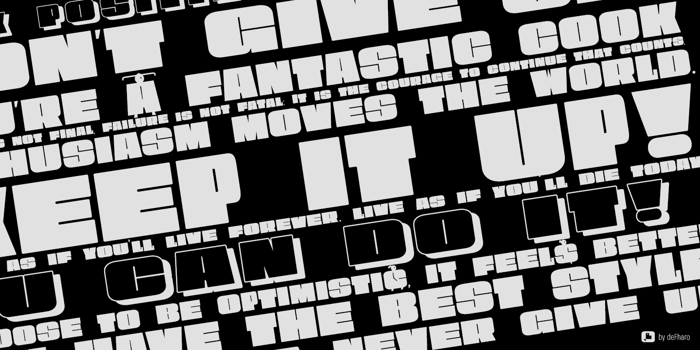
Obesum Ultra Caps Font
Extra Black Expanded Style
Obesum Caps is a very thick geometric display typeface with great contrast in the counterforms, it is made in homage to the capital letters and obese girls.
The font has five sets of uppercase letters: Capital letters are extended, lower case letters are more squares, and there is a version in small caps of a semi-expanded proportion, all of them with idiomatic support for Latin Extended-A, in addition to the standard alphabet and numbers in small size for the positions: Inferior, Denominator, Numerator and Superior, the letters and numbers have support for dynamic fractions and ordinals, besides the numbers have 3 different set: The normal numbering extended with the height of the capitals, old numbers to use with the small caps version of the letters and that have the height of the x and finally a third version of numbers for annotations.
I have enjoyed the forms and counterforms of this typeface so much that I have drawn an alternate alphabet to the tiny letters with figures of very sophisticated obese girls that are going to party, I hope you like it.